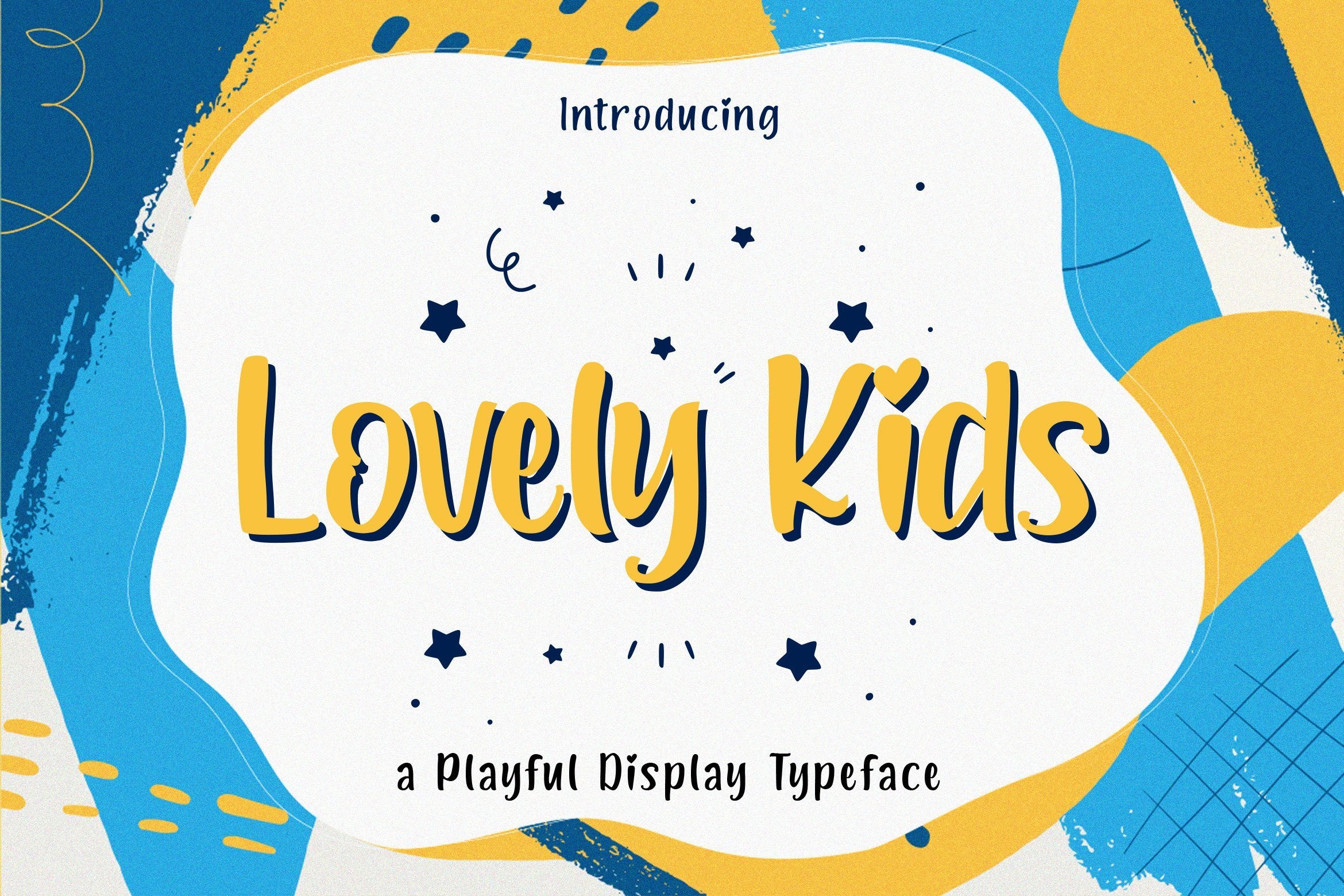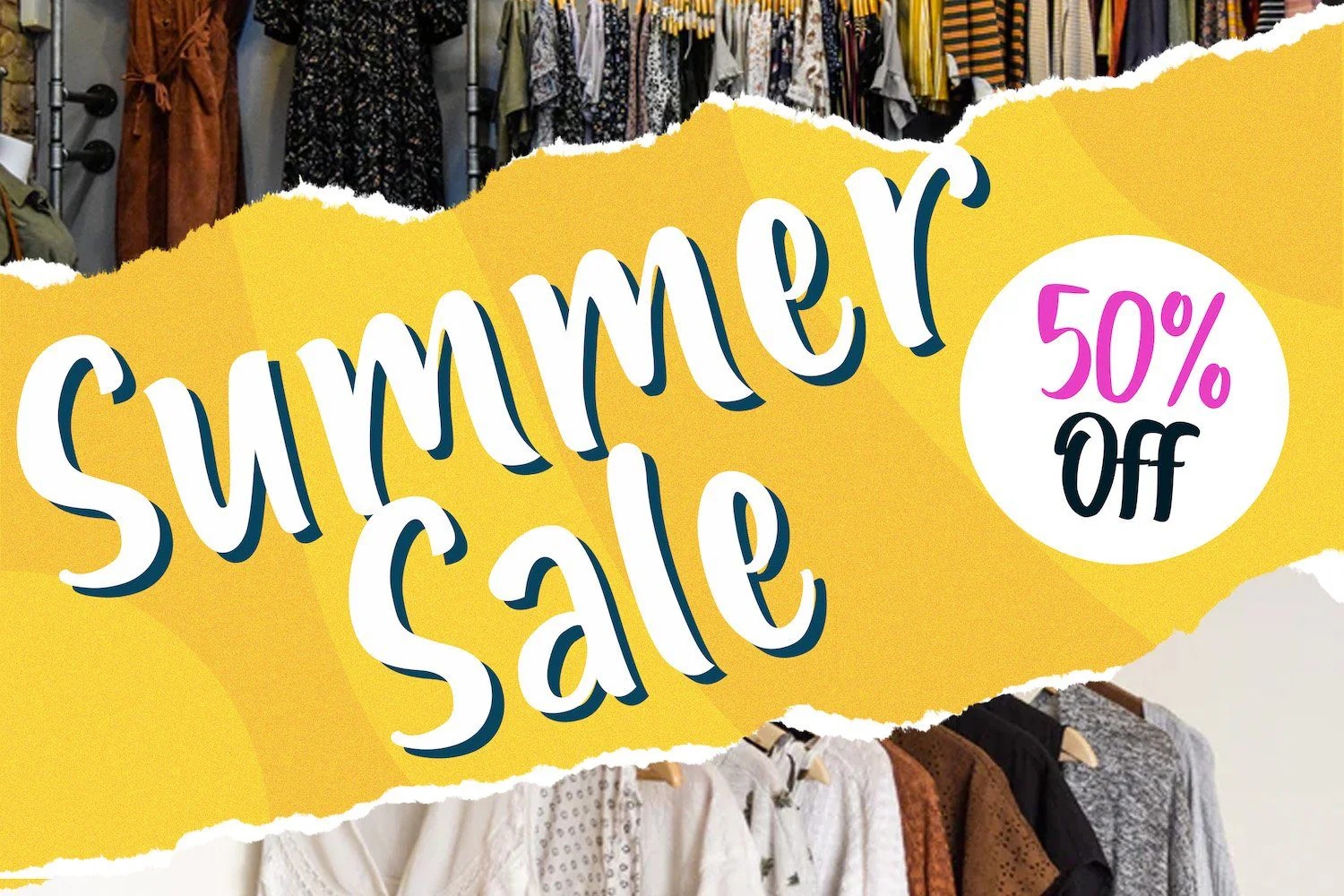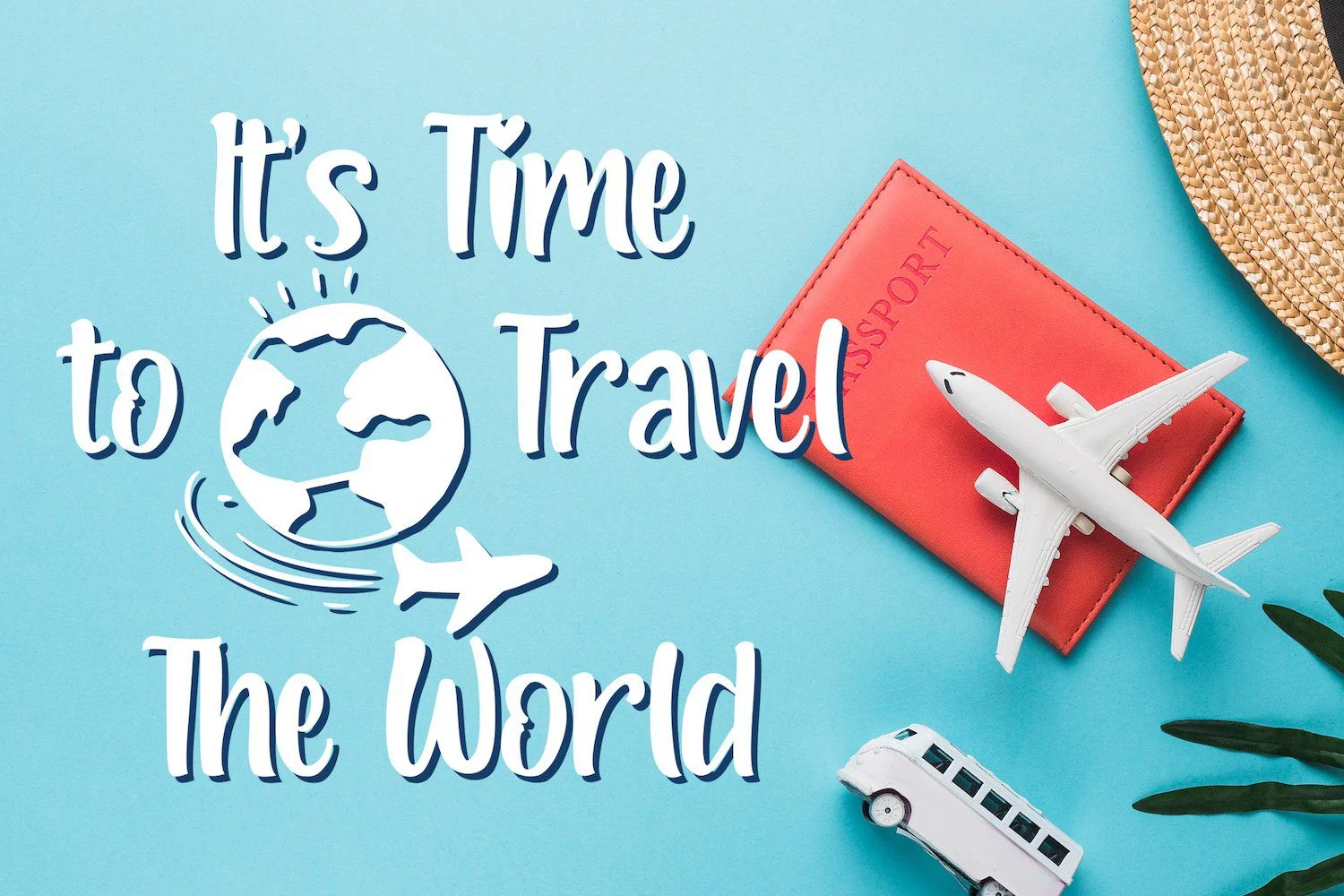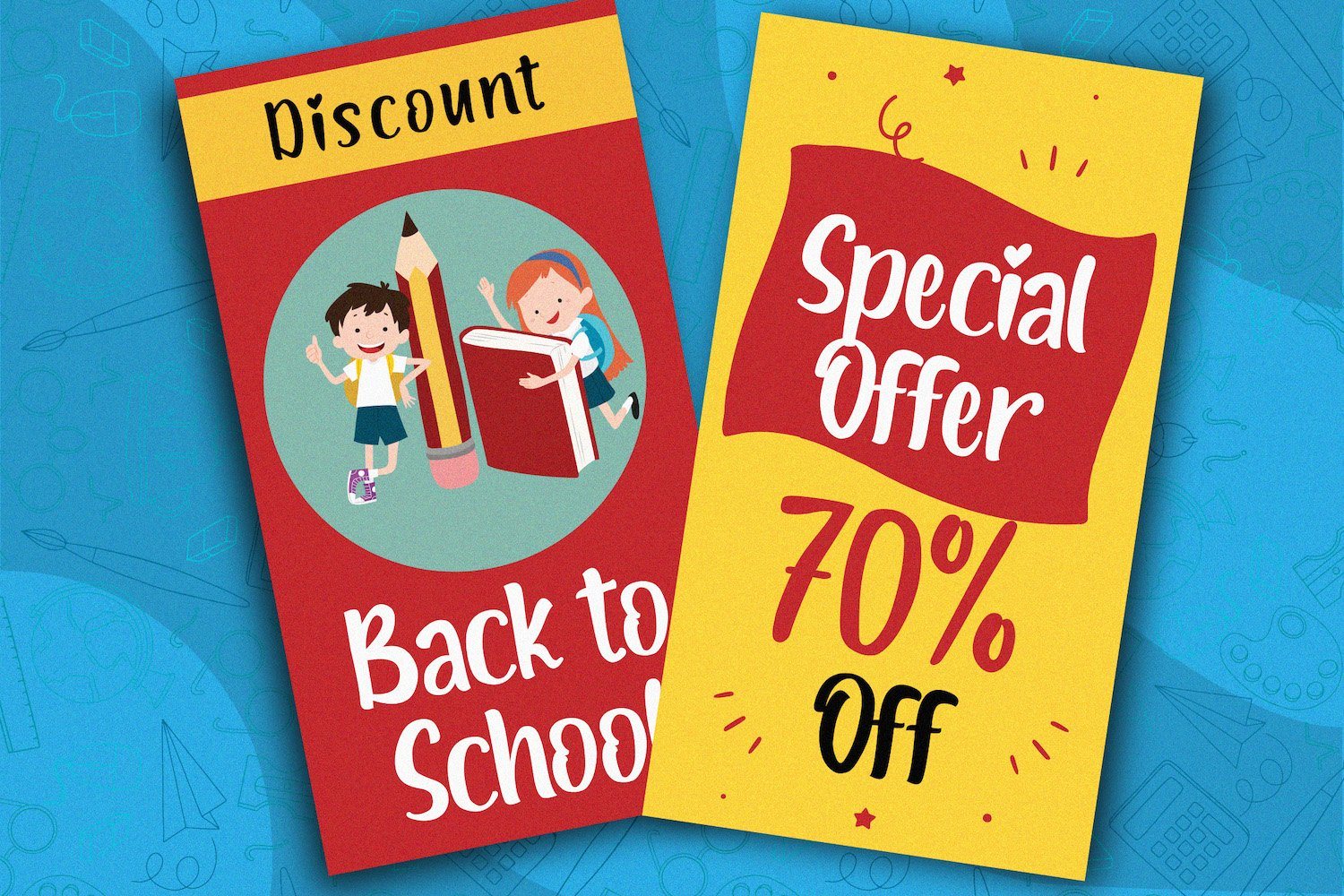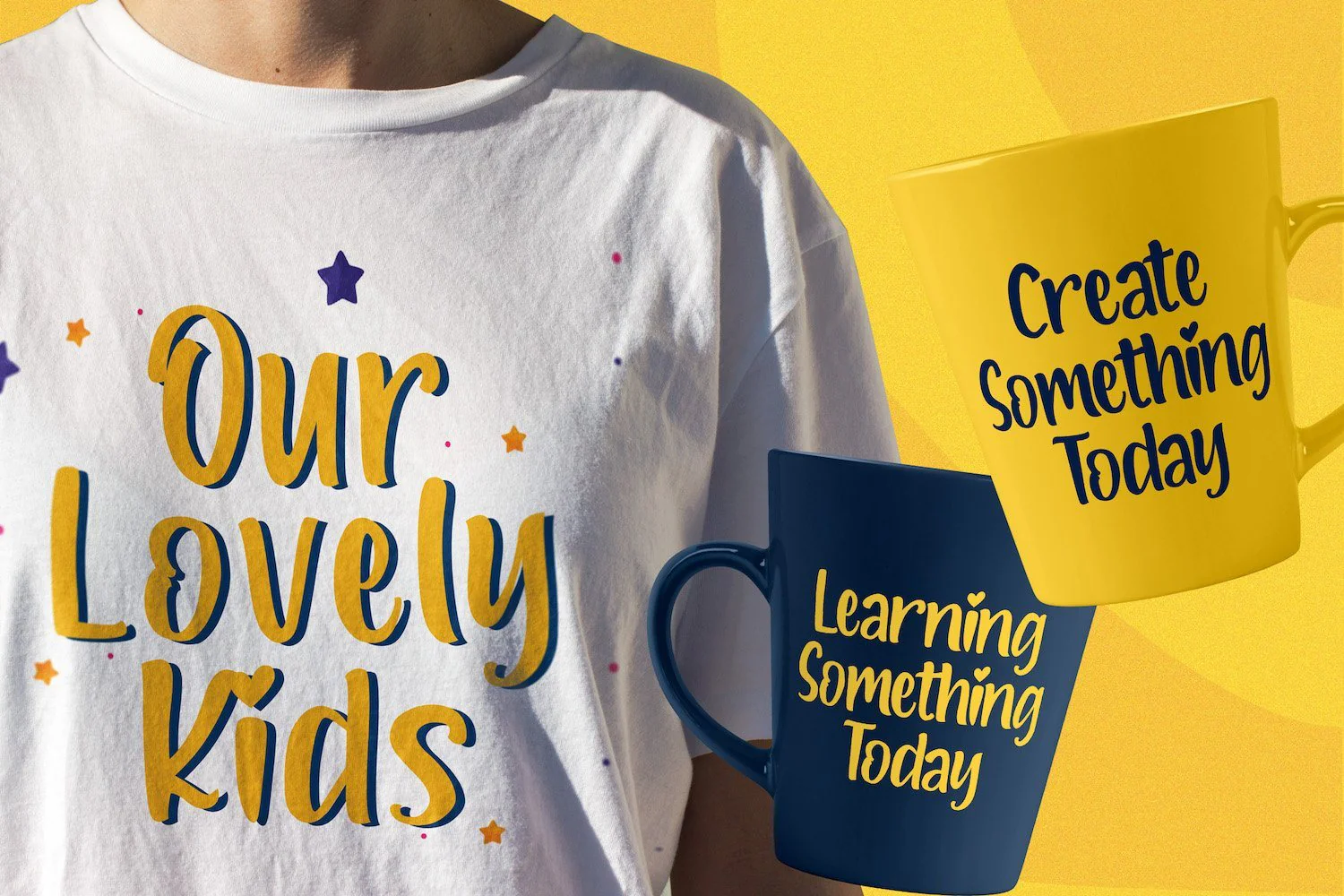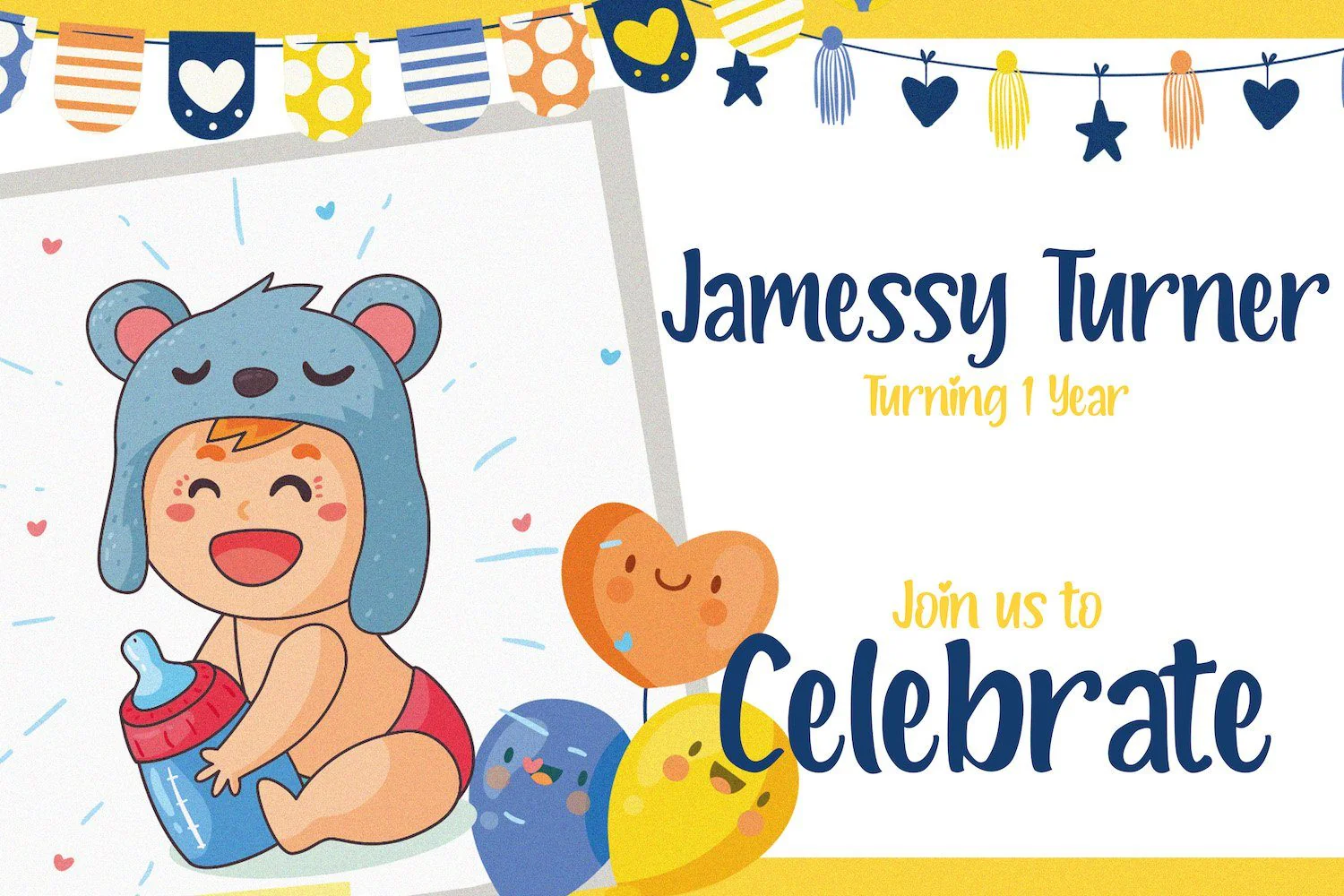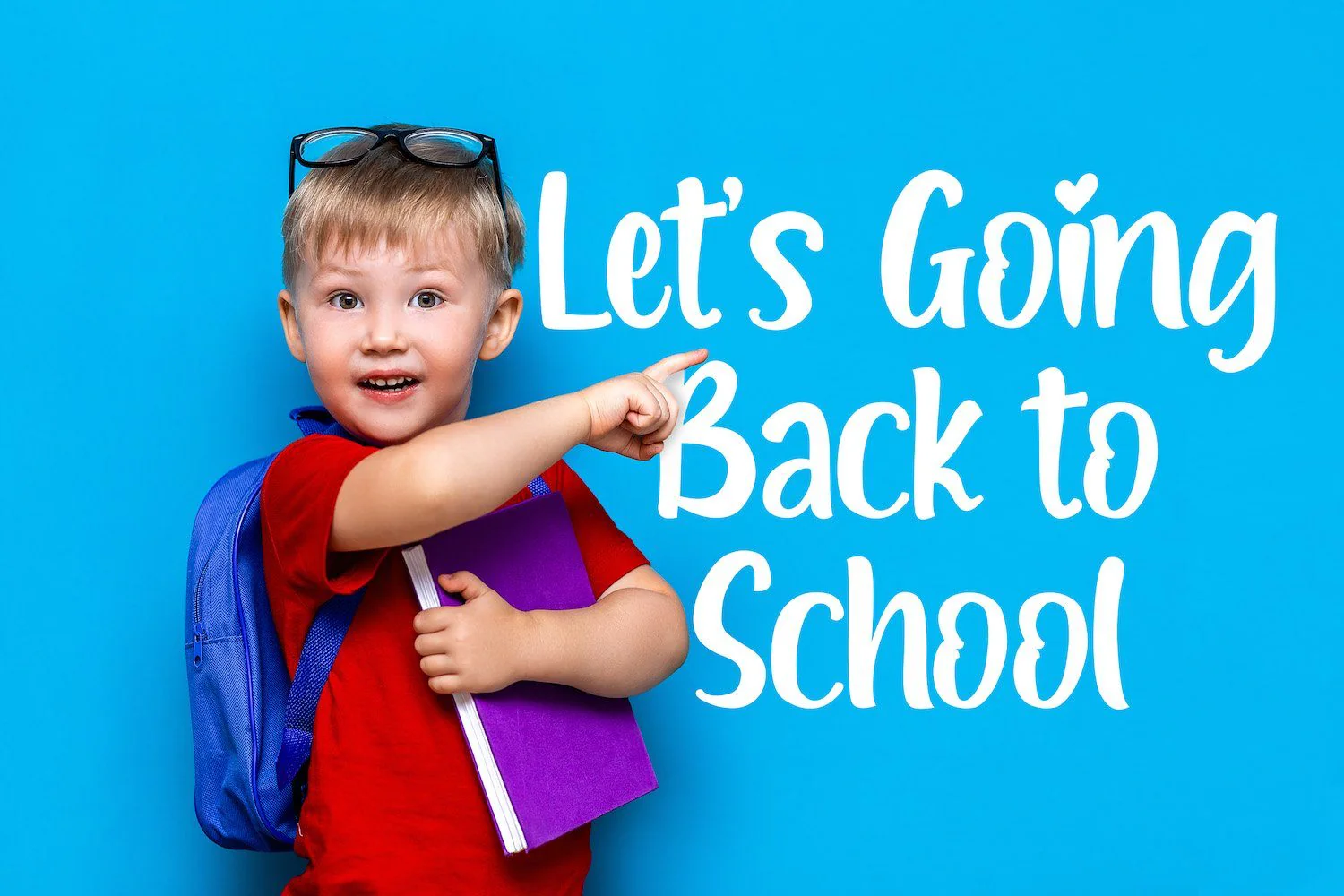
Lovely Kids - Playful Font
Introducing Lovely Kids - Playful Font
Lovely Kids is a playful font that specially crafted for children, Boys, Kindergarten, Birthday, Kid, Cartoon, and Comic purposes.
The Lovely Kids cheerful font contains Modern, Elegant, Creative, Professional and Unique Concept.
Introducing Lovely Kids - Playful Font
Lovely Kids is a playful font that specially crafted for children, Boys, Kindergarten, Birthday, Kid, Cartoon, and Comic purposes.
The Lovely Kids cheerful font contains Modern, Elegant, Creative, Professional and Unique Concept.